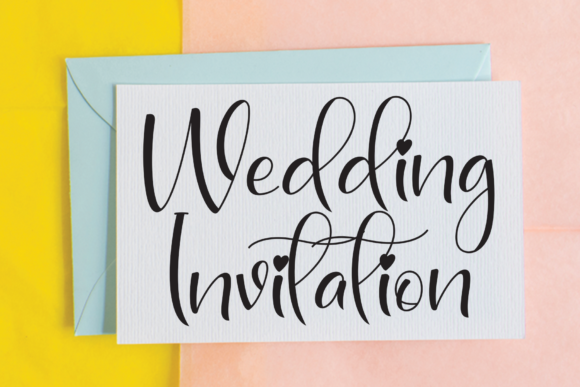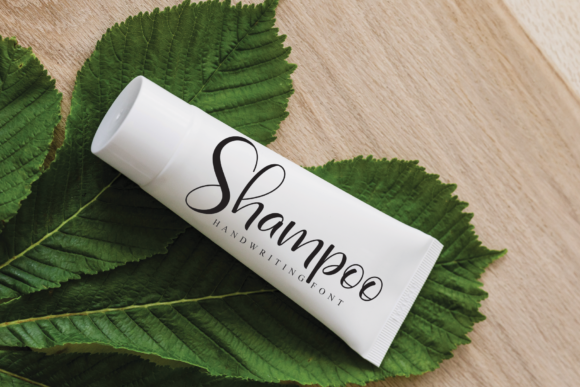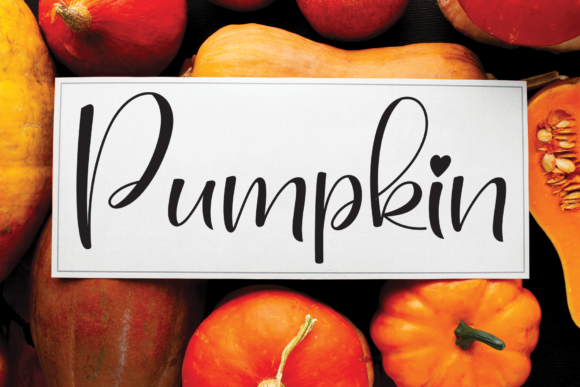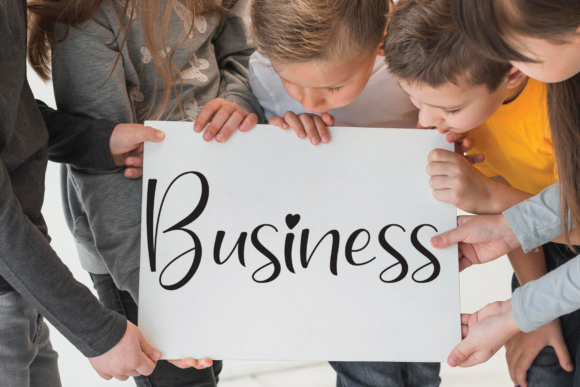
Beautiful Christmas Font: Add a Touch of Romance to Your Designs
Are you looking for a font that exudes elegance, romance, and festivity? Look no further than the Beautiful Christmas Font! This trendy and delicate script font is perfect for designers and crafters who want to add a personal touch to their projects. With its unique accents of hearts on some letters, this font is sure to make your designs stand out.
What Makes Beautiful Christmas Font So Special?
The Beautiful Christmas Font is a handcrafted script font that features a delicate and elegant design. The font is perfect for creating beautiful wall displays, wedding invitations, social media post logos, advertisements, product packaging, product designs, labels, photography, watermarks, invitations, stationery, and any project that requires a personal handwritten style font.
One of the standout features of this font is its romantic accents. The hearts on some letters add a touch of whimsy and playfulness, making it perfect for projects that require a bit of flair. Whether you’re designing a wedding invitation or a product label, this font is sure to add a touch of elegance and sophistication.
Uses for Beautiful Christmas Font
The Beautiful Christmas Font is incredibly versatile and can be used for a wide range of projects. Here are some ideas to get you started:
- Wedding Invitations: Create beautiful and elegant wedding invitations that set the tone for the big day.
- Wall Displays: Design stunning wall displays for special occasions or everyday decor.
- Social Media Post Logos: Add a personal touch to your social media posts with custom logos and graphics.
- Advertisements: Create eye-catching advertisements that stand out from the crowd.
- Product Packaging: Add a touch of elegance to your product packaging with custom labels and designs.
- Product Designs: Create beautiful product designs that showcase your brand’s personality.
- Labels: Design custom labels for your products or gifts.
- Photography: Add a watermark to your photos with this beautiful font.
- Invitations: Create custom invitations for parties, events, and special occasions.
- Stationery: Design beautiful stationery sets that include letters, notecards, and journals.
Why Choose Beautiful Christmas Font?
There are many fonts available that claim to be elegant and romantic, but the Beautiful Christmas Font stands out from the rest. Here are a few reasons why:
- Unique Accents: The hearts on some letters add a unique touch that sets this font apart from others.
- Delicate Design: The font features a delicate and elegant design that is perfect for a wide range of projects.
- Handcrafted: This font is handcrafted, giving it a personal and human touch.
- Trendy: The Beautiful Christmas Font is a trendy font that will keep your designs looking modern and fresh.
Tips for Using Beautiful Christmas Font
Here are a few tips for using the Beautiful Christmas Font:
- Pair with Other Fonts: Pair this font with other fonts to create a unique and interesting design.
- Experiment with Colors: Experiment with different colors to find the perfect combination for your project.
- Use for Headlines: Use this font for headlines and titles to add a touch of elegance.
- Add Graphics: Add graphics and illustrations to your design to make it more visually interesting.